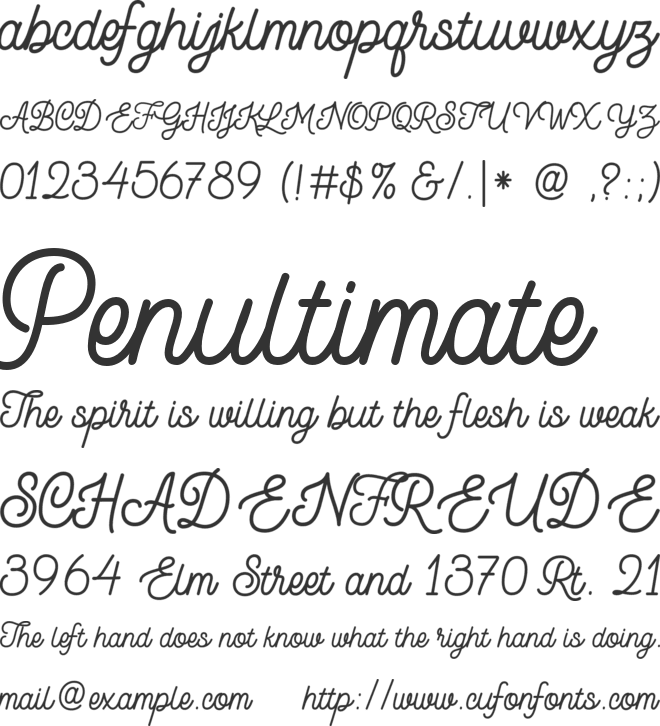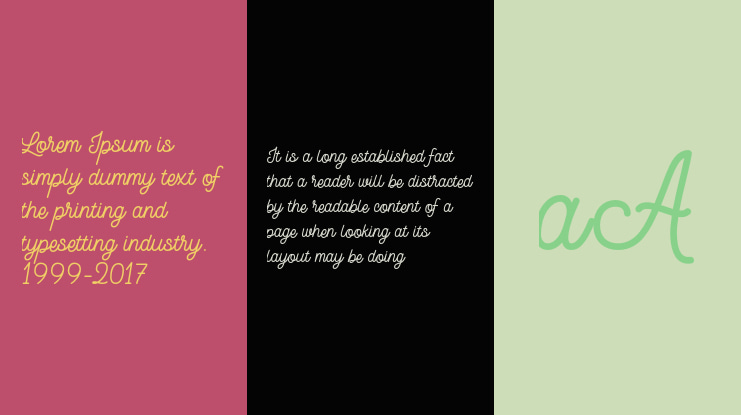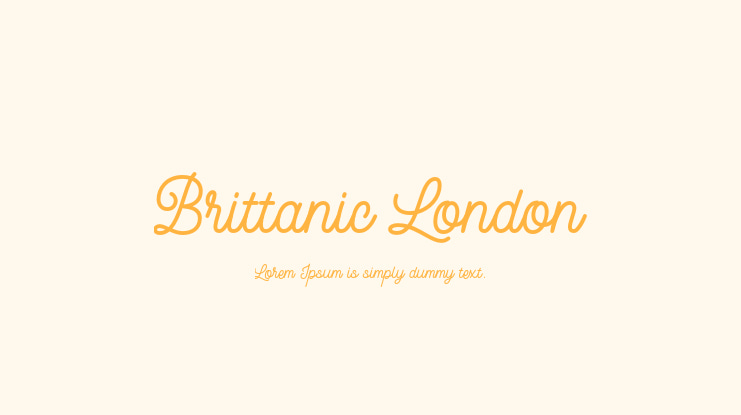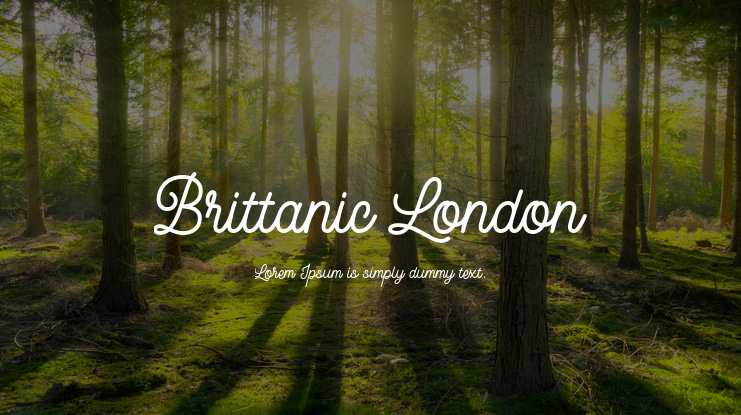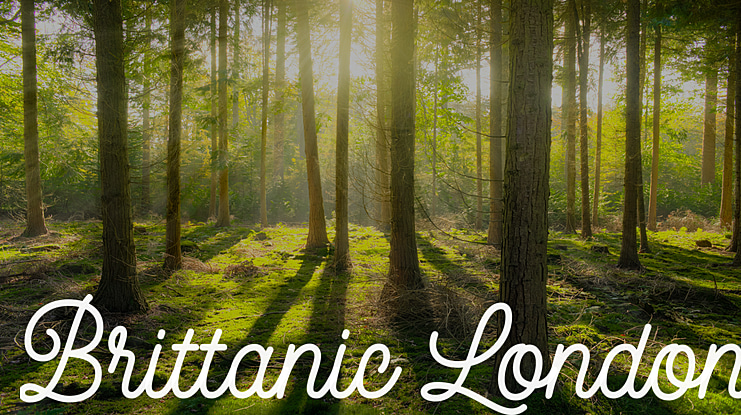
Brittanic London Font
This font is a minimalist script type font. Brittanic London Font is a sophistication with its lettering. The script font is typical, with its loops and exaggerations. Its casual charm makes it appear wonderfully down-to-earth, readable, and, ultimately, incredibly versatile. It’s ready and Perfectly fit for your logo designs, headline, music projects & social media posts, event poster, brand imagery, product packaging, quotes, merchandise, etc.